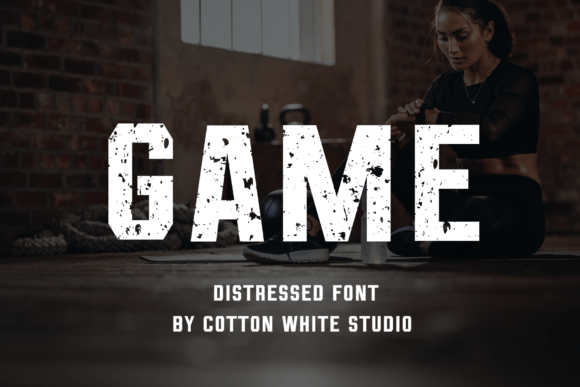
Looking for the best fonts for college? Look no further than Game Font from Lemon Downloads. This modern and dynamic display font is perfect for any project, no matter the topic.
Game Font is not just any font; it's a game-changer. It has the power to take your designs to the next level, and it's perfect for college students who want to stand out from the crowd. With its sleek and stylish design, Game Font is sure to capture the attention of anyone who sees it.
Whether you're working on a school project, a presentation, or a personal website, Game Font is the ideal choice. It's versatile enough to work with any style, and it's sure to give your work a professional edge.
What sets Game Font apart from other display fonts is its ability to evoke emotion. Its unique style conveys a sense of energy and excitement, making it the perfect choice for any project that needs a little extra oomph.
And let's not forget about the practical benefits of Game Font. Its legibility and readability make it perfect for use in presentations and reports, ensuring that your audience can easily follow along.